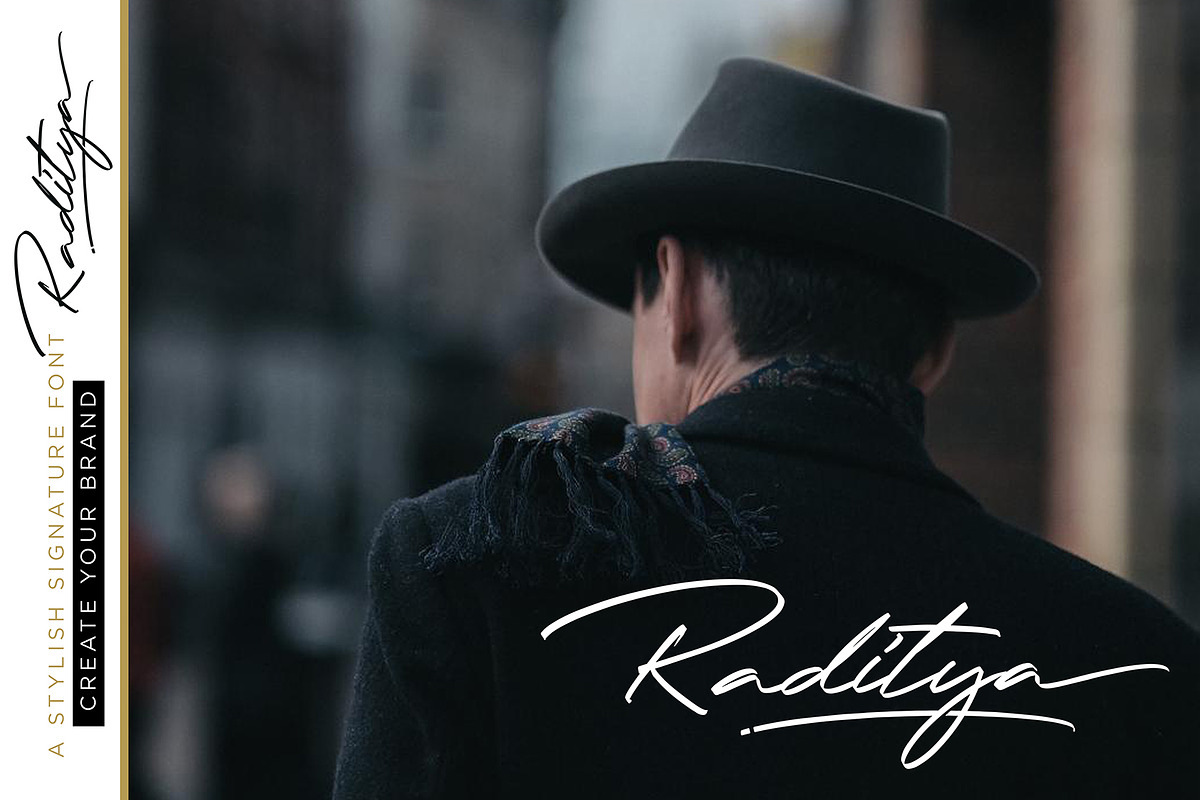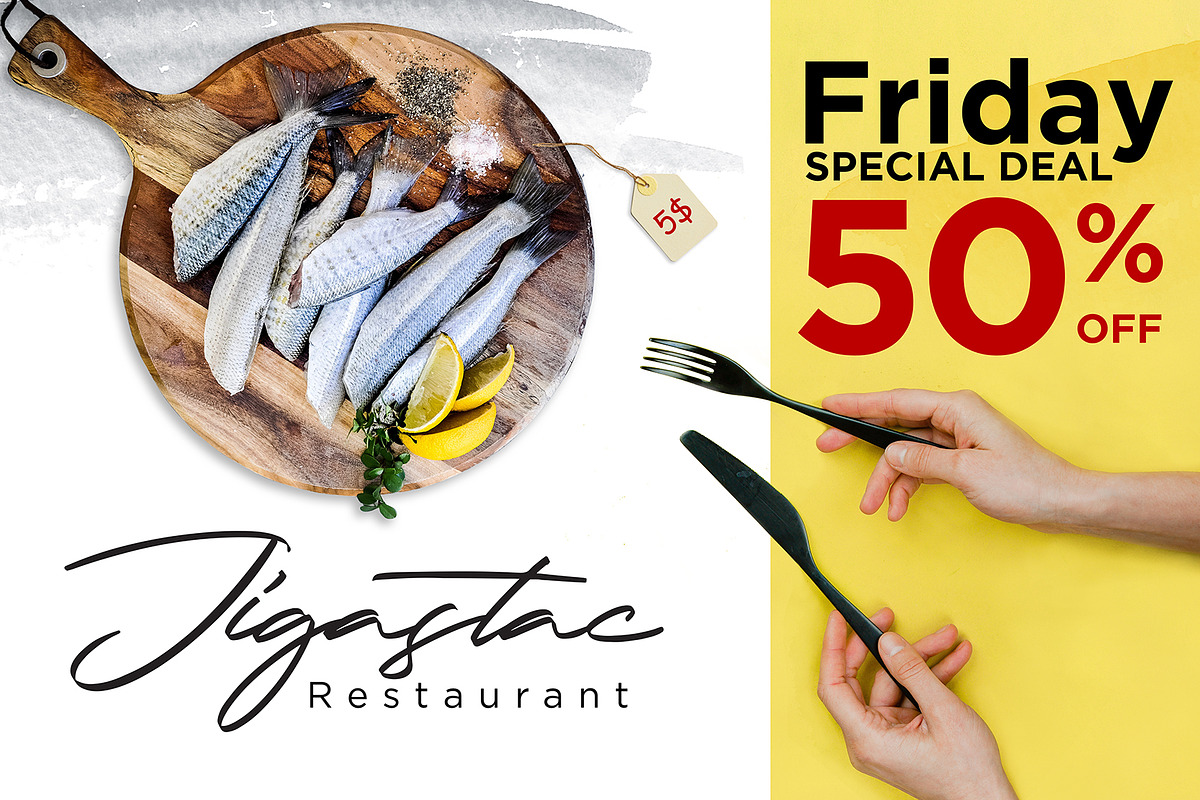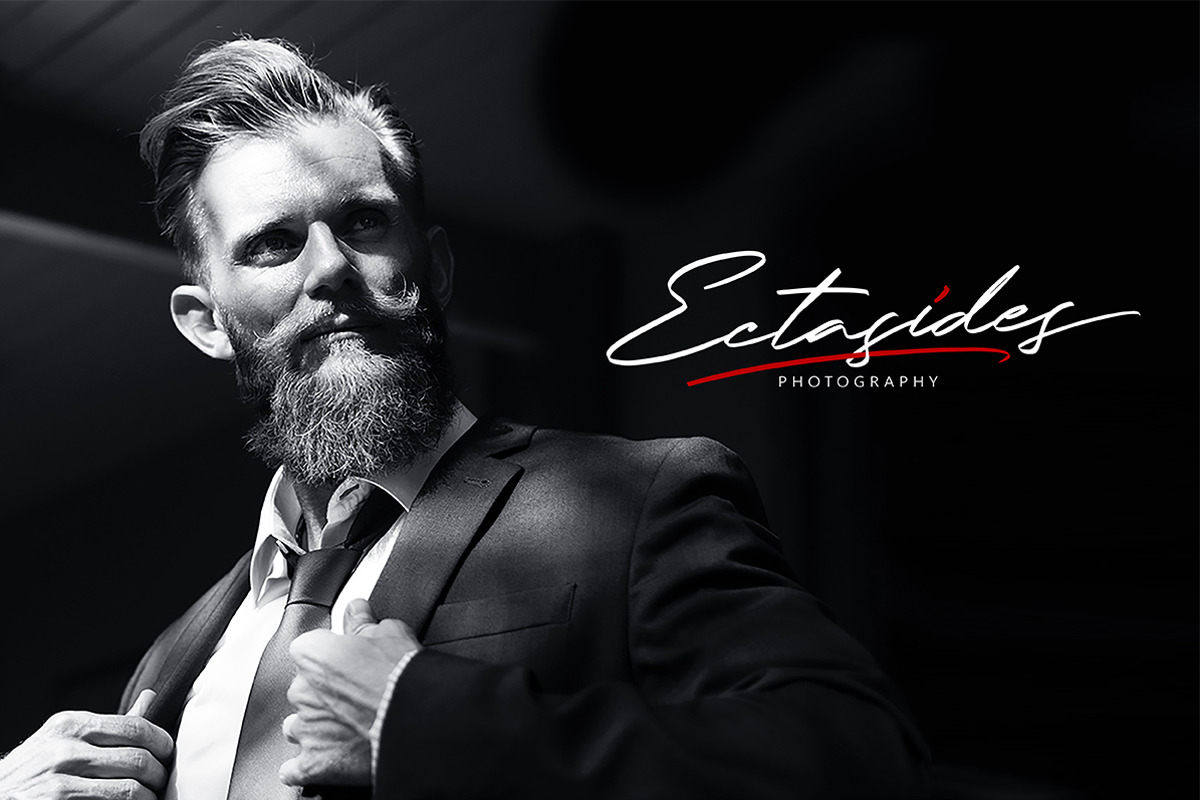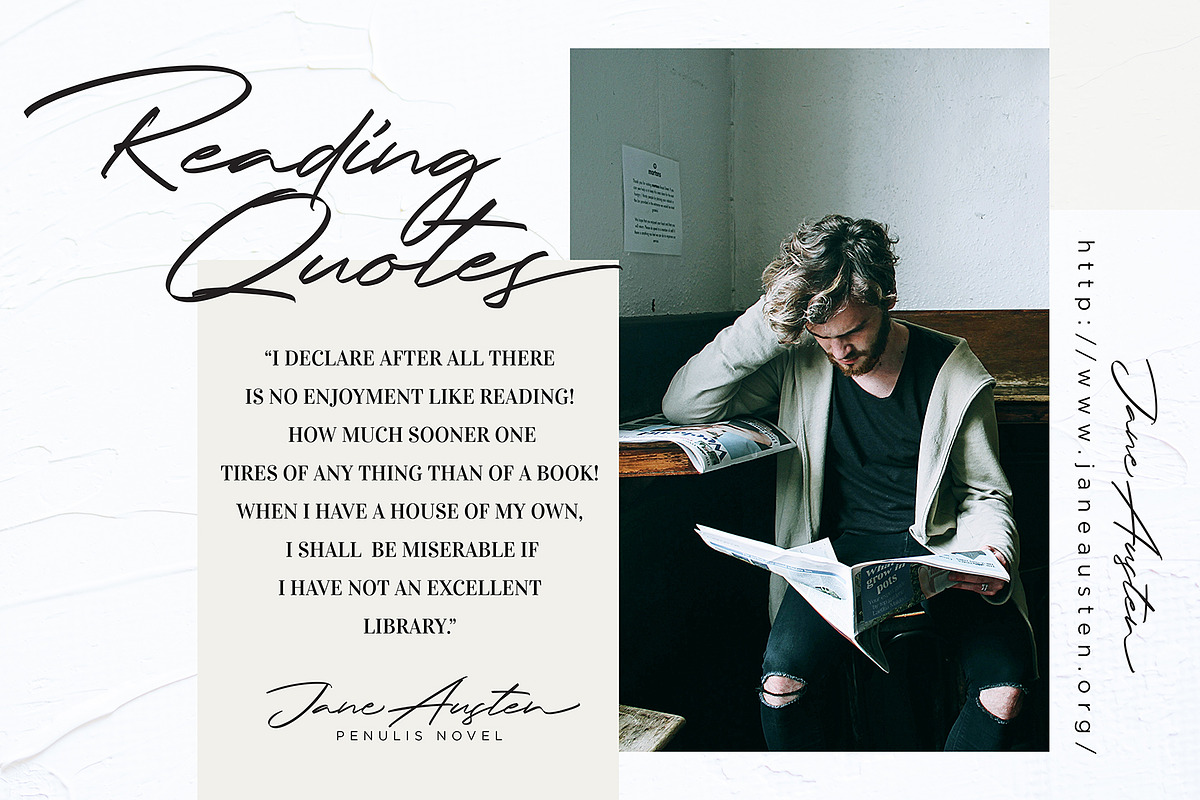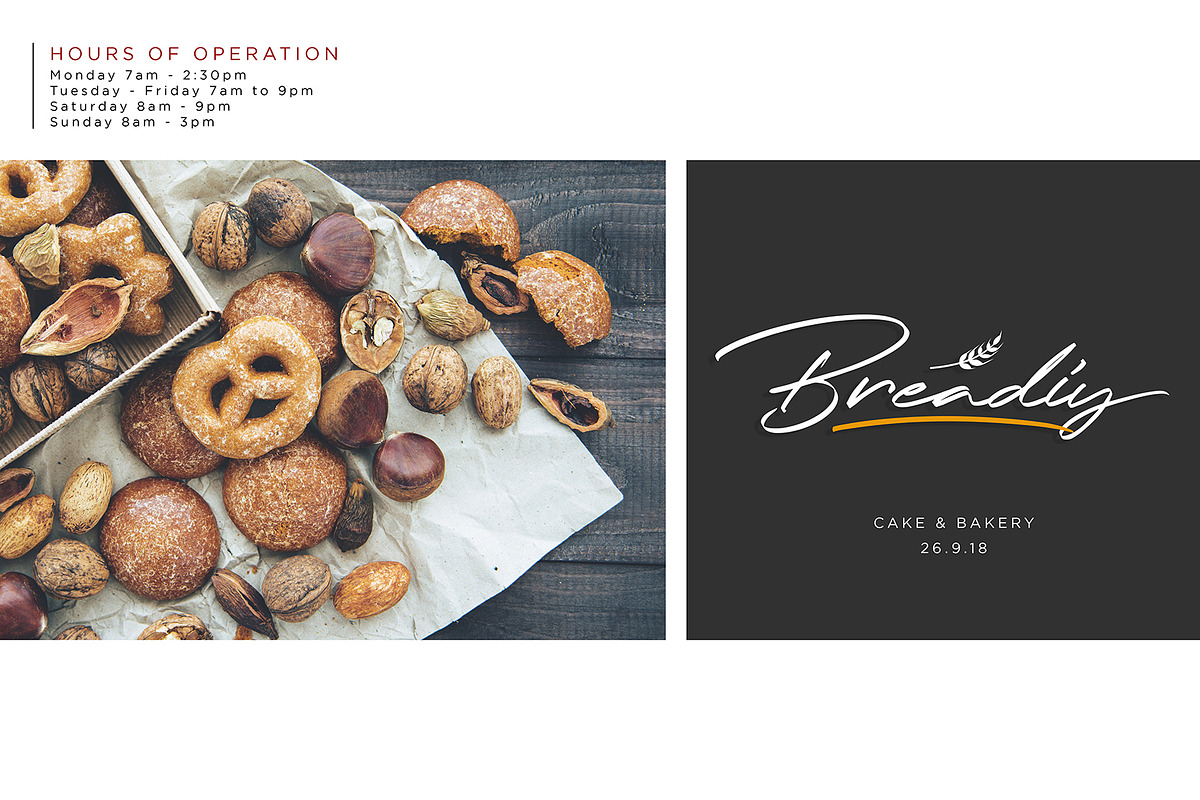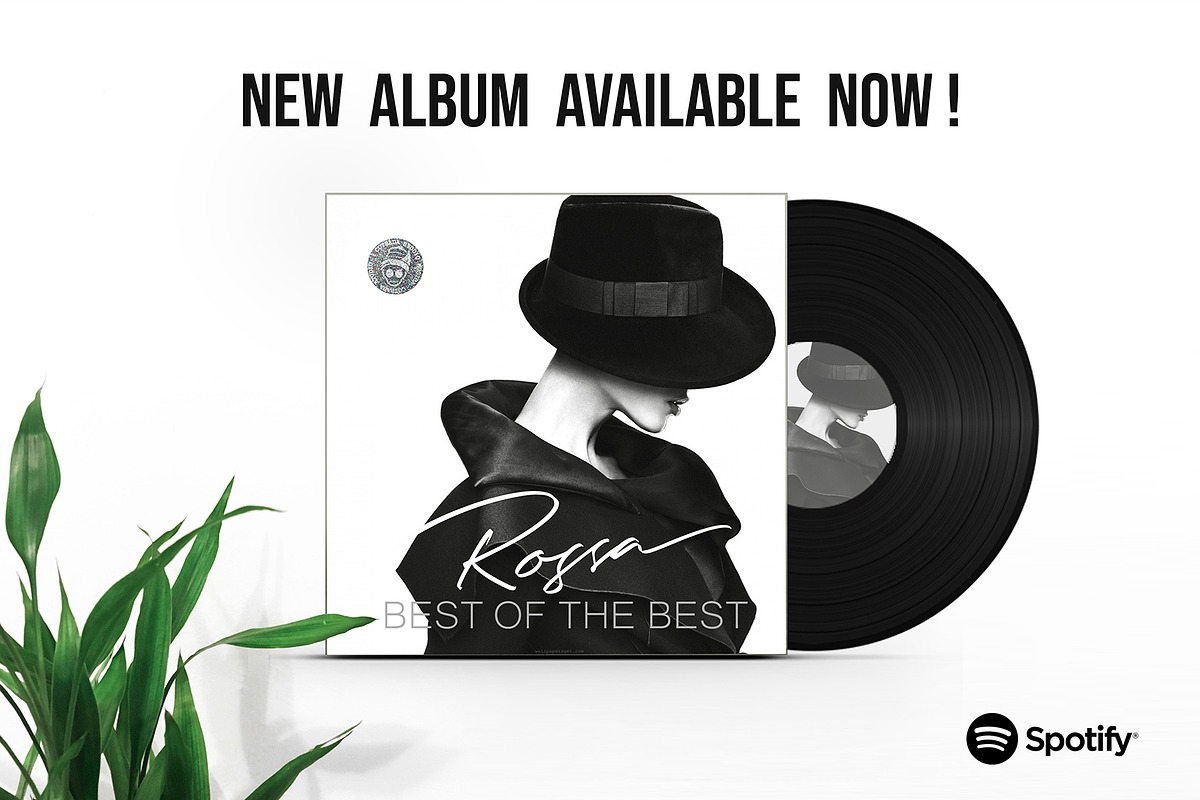
Jodie Badiston Script
Jodie Badiston Font Script is a unique, cool and modern handwritten font. It's hand look style makes it perfect for use in all your design projects be it logos, Labels, Packaging design, Blog headlines, Poster, Instagram Design, etc
- Jodie Swash